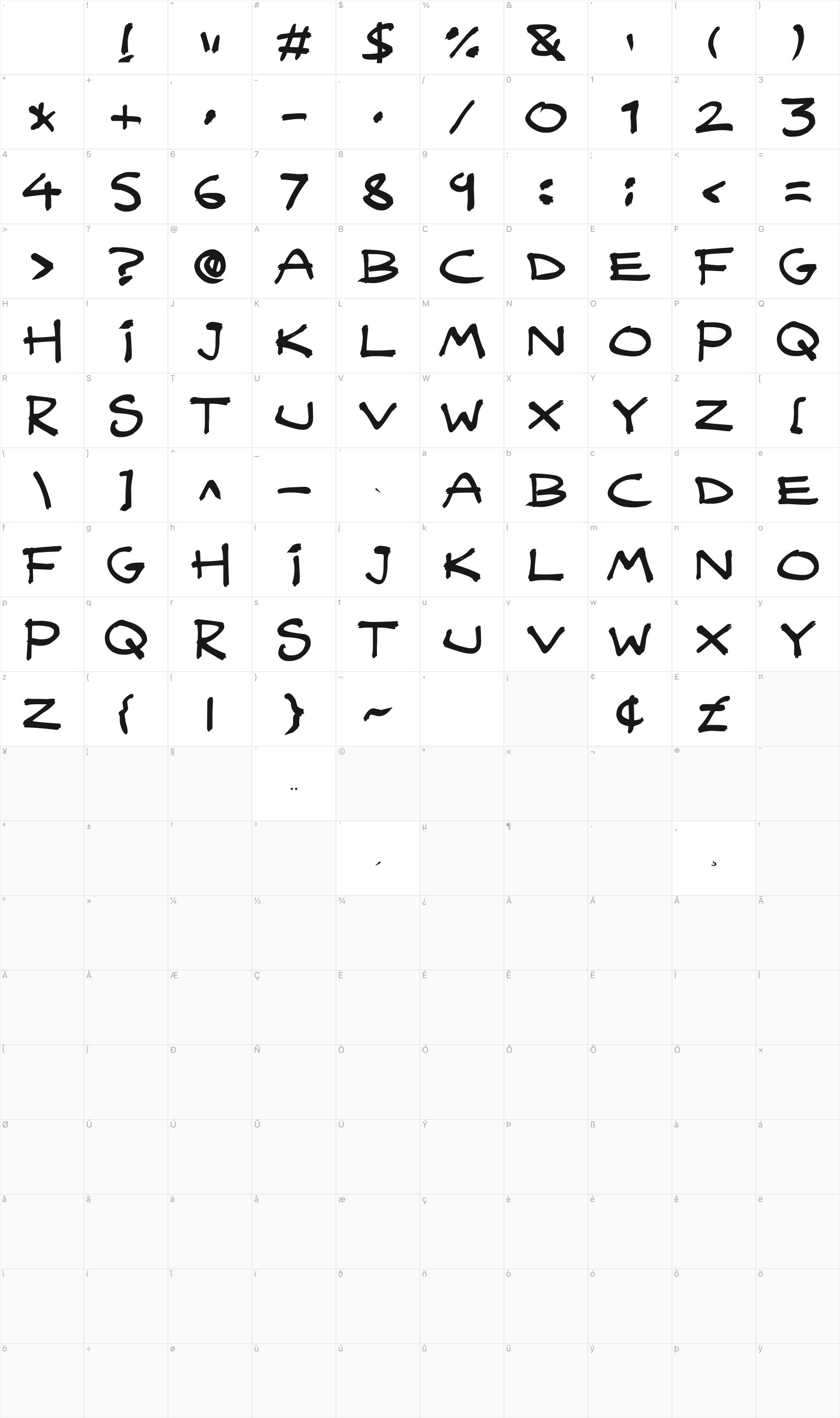
Quicky Brush
by Darrell Flood
Quicky Brush is a bold, loose brush script from Darrell Flood with thick strokes and irregular letterforms that feel like someone grabbed a fat marker and just went for it. The casual, handwritten energy keeps things playful and spontaneous, making it a strong pick for headlines, packaging, social media graphics, or anywhere you want type that feels unscripted and alive.